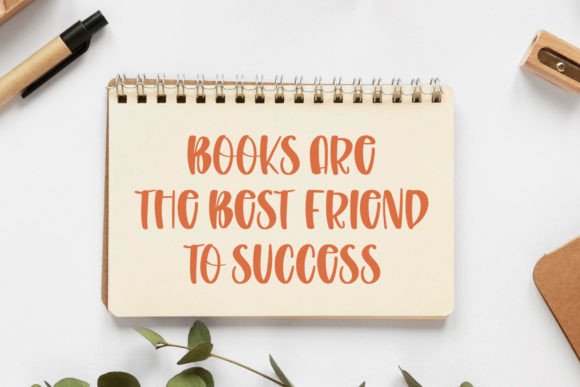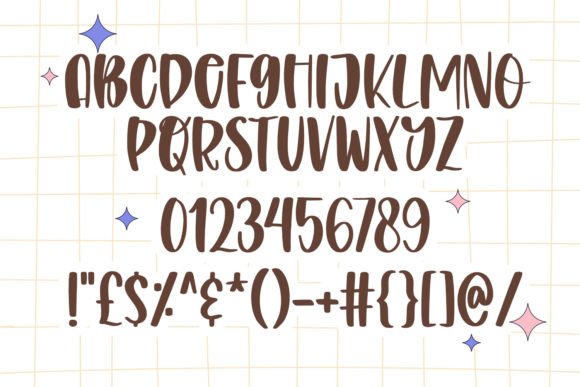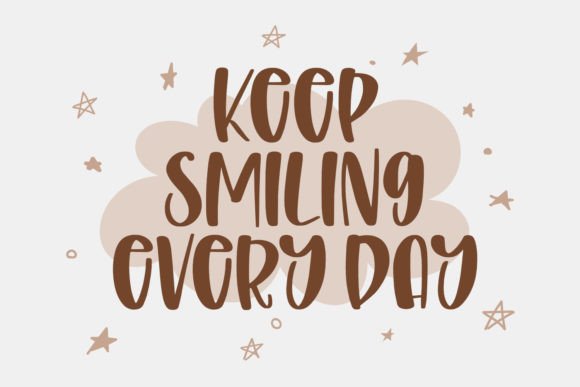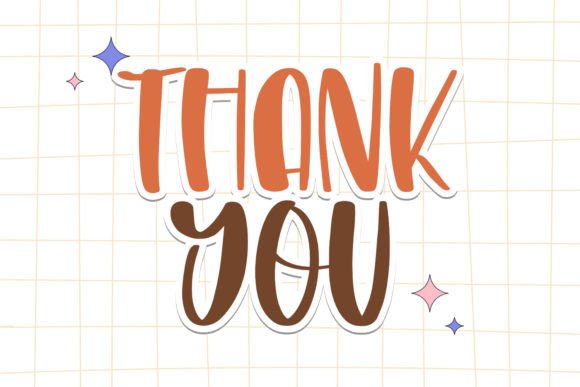
Introduction to Orange Candy Font
Have you ever stumbled upon the perfect font that makes your design project come alive? For many designers, that moment is a game-changer. It’s the moment when all the elements fall into place, and the project takes on a life of its own. That’s exactly what the Orange Candy Font does – it brings a smile to your face and adds a touch of whimsy to your creative project.
As a valuable design resource, the Orange Candy Font is a high-quality, free download that’s perfect for designers looking to add a playful twist to their work. Its transparent background makes it easy to combine with other design elements, while its charming design ensures that your project stands out from the crowd.
Whether you’re working on a children’s book, a greeting card, or a social media campaign, the Orange Candy Font is sure to bring a burst of creativity to your project.
Key Features of Orange Candy Font
- Unique and colorful design, ideal for creative projects that require a playful touch.
- Features a transparent background, allowing for easy layering and customization in design applications.
- High-quality font with crisp and clear typography, suitable for both digital and print designs.
- Includes a range of glyphs and characters, including uppercase and lowercase letters, numbers, and punctuation marks.
Honest Review: Orange Candy Font
I recently had the chance to work with the Orange Candy Font, and I must say, it was a delight to use. As a designer, I’m always on the lookout for high-quality design resources that can elevate my creative projects.
- ✨ Unique and playful style – The Orange Candy Font is perfect for adding a pop of color and whimsy to your designs.
- ✨ Transparent background – This feature makes it easy to layer the font over any background, giving you maximum flexibility in your design.
One of the things that stood out to me was the font’s high quality. The bold lines and vibrant colors make it perfect for use in logos, graphics, and other design elements.
- ⚠️ Limited font styles – While the Orange Candy Font is available in several weights, it would be great to see more font styles and variations in the future.
Overall, I was impressed with the Orange Candy Font. It’s a great free download that’s perfect for designers looking to add some personality to their creative projects.
To get the most out of the Orange Candy Font, use it in creative ways, such as in headings, titles, and labels. You can also pair it with other fonts to create a unique and visually appealing design.
The Orange Candy Font is perfect for a variety of use cases, including branding, marketing materials, social media graphics, and digital products. Its unique and eye-catching design makes it an ideal choice for designers who want to add a touch of creativity to their projects.